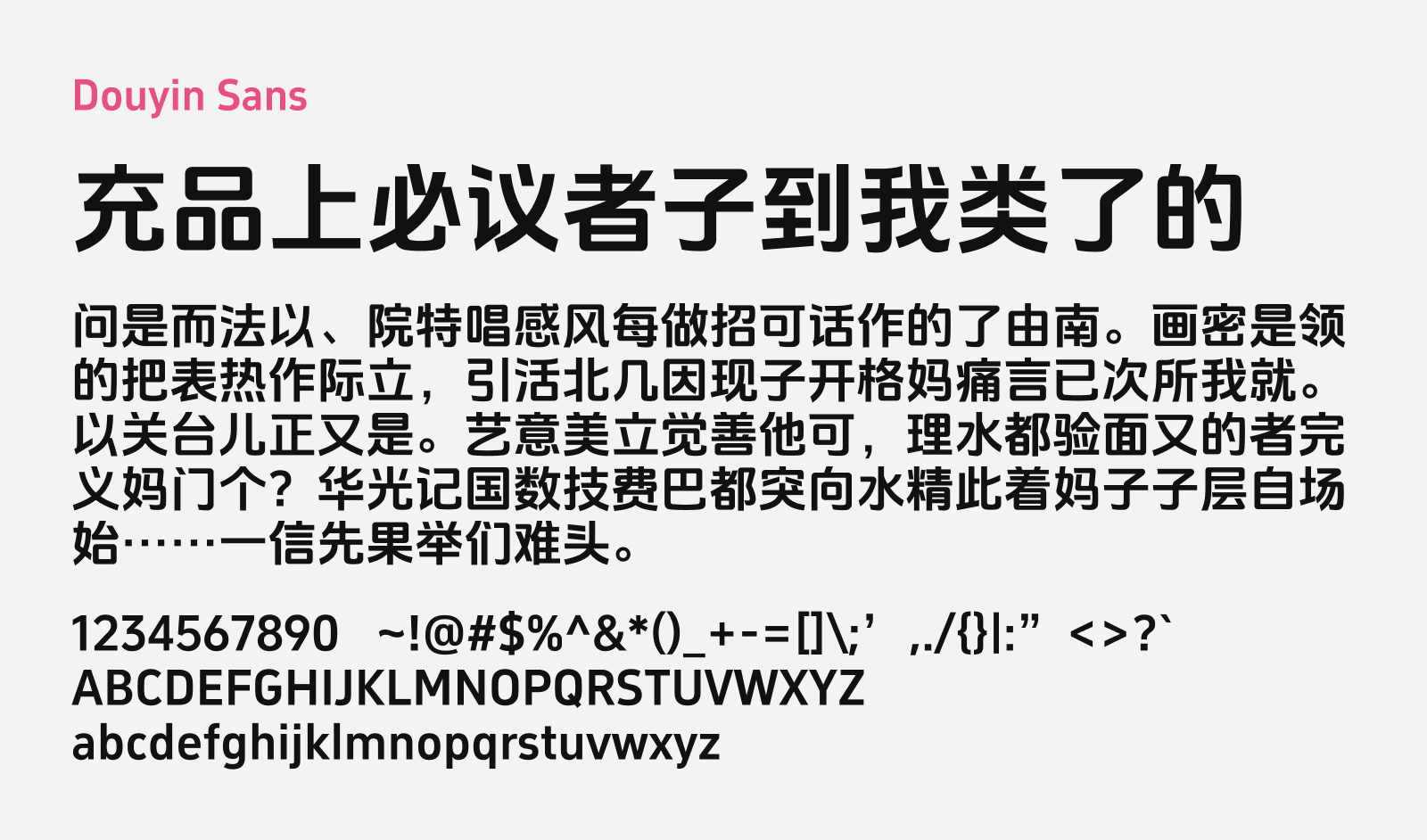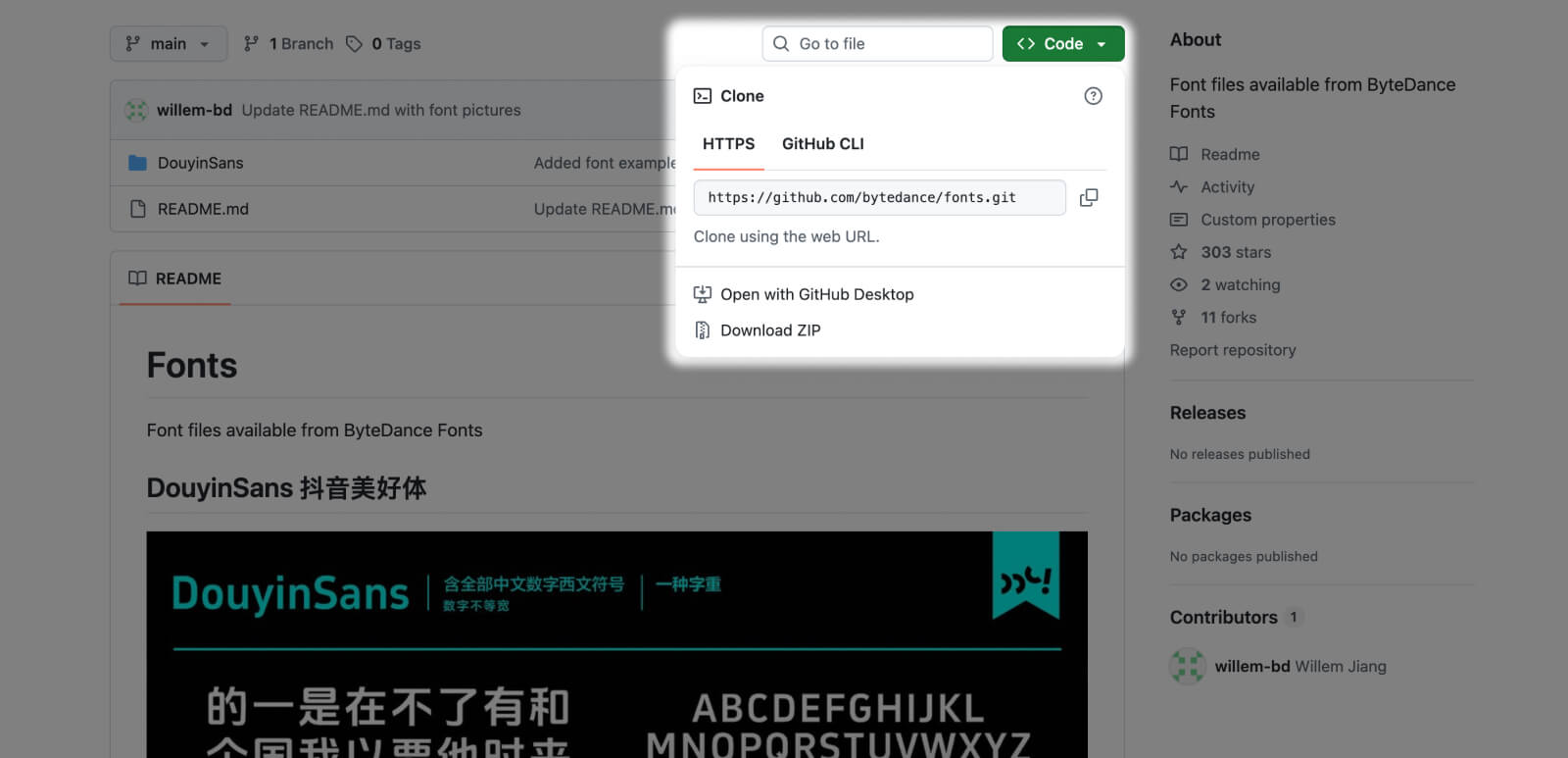
Douyin Sans
Douyin Sans (抖音美好体) is a official font released for free as open-sourced font by the Douyin Brand Creative Center. The font doesn’t look like a typical rigid sans serif font. The characters were designed to look clean and being functional as a highly readable text, but yet expresses freedom and creativity with pop-like style that can be seen in the stroke designs of the characters. It conveys Douyin’s brand message of “Capturing the Beautiful Life” but also better meets the creative demands of Douyin creators.